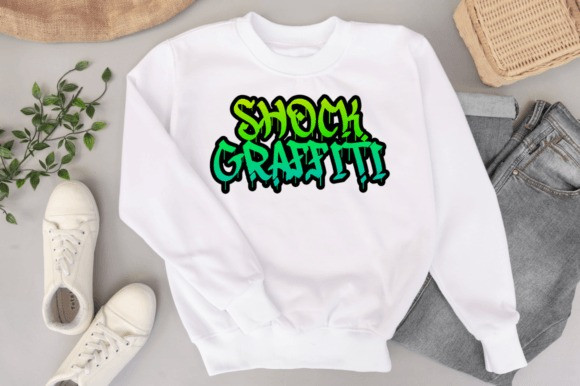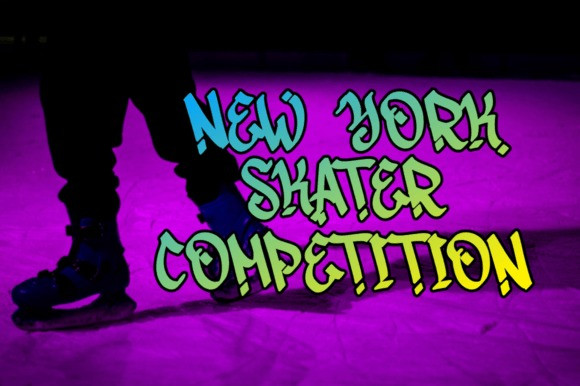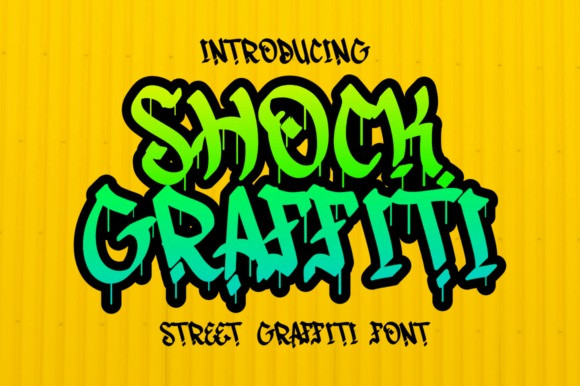
Shock Graffiti Font
Shock Graffiti Font! This font offers a distinctive writing style and is very suitable for urban and street-themed designs. With Shock Graffiti, you can bring a strong and bold impression to every design you create.
Shock Graffiti comes with a complete set of letters and fine details, so you can customize your design better. This font is also very easy to use and compatible with various design applications. Suitable for use in posters, merchandise, or even in t-shirt and hoodie designs.